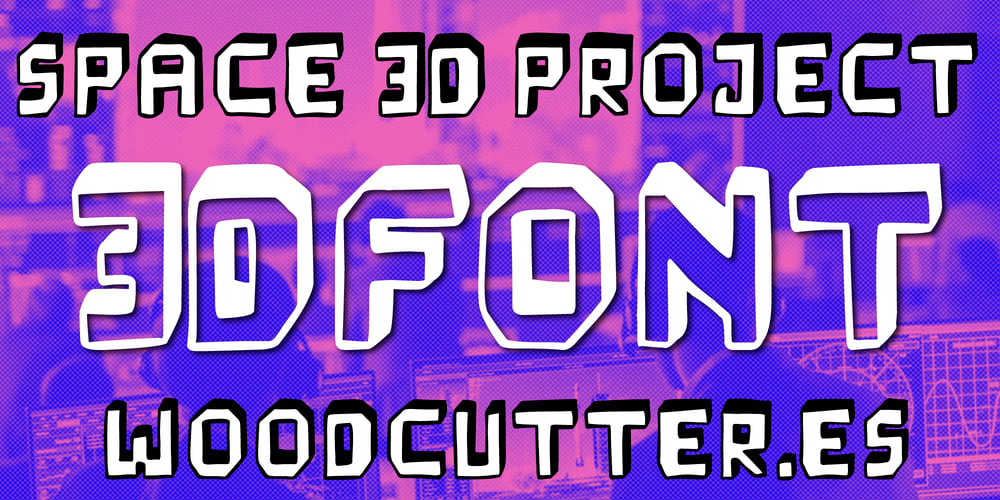
Space 3 D Project Font Family was designed by Jordi Manero and published by Woodcutter. Space 3 D Project contains 1 styles and family package options. “Space 3D Project” is an uppercase typeface that stands out for its hollow letters with a unique three-dimensional effect. Each character features a shadow cast upward, giving it a spatial and futuristic touch. The design has a handcrafted finish with imprecise strokes that add personality and an artisanal feel. This font is perfect for creative projects seeking to combine a retro-futuristic aesthetic with a casual and dynamic style. Its bold and experimental appearance makes it an ideal choice for titles, posters, or designs related to space and science fiction.